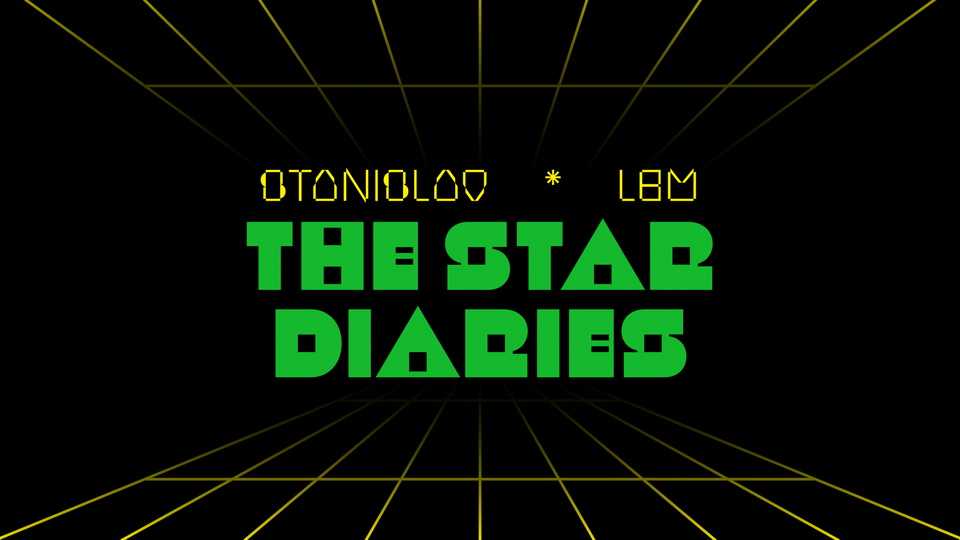
Download Intervals font, a display typeface heavily inspired by the retro-futuristic aesthetics and the idea of space and robots in Lem’s time. On the path to transform from a geometric font to a bitmap font, the variable font discovers many letterforms of unique energy.
Designer: H. Phuong Nguyen